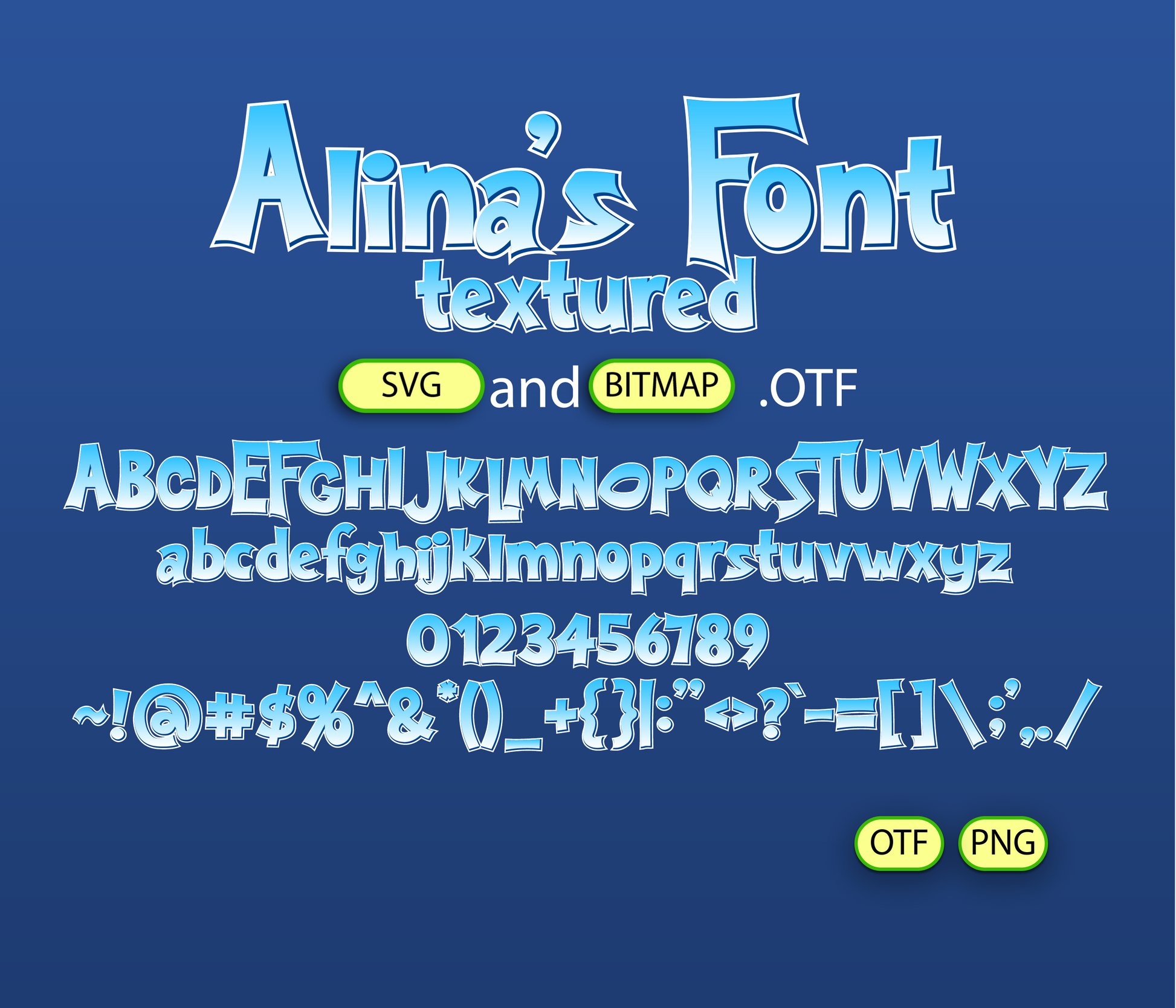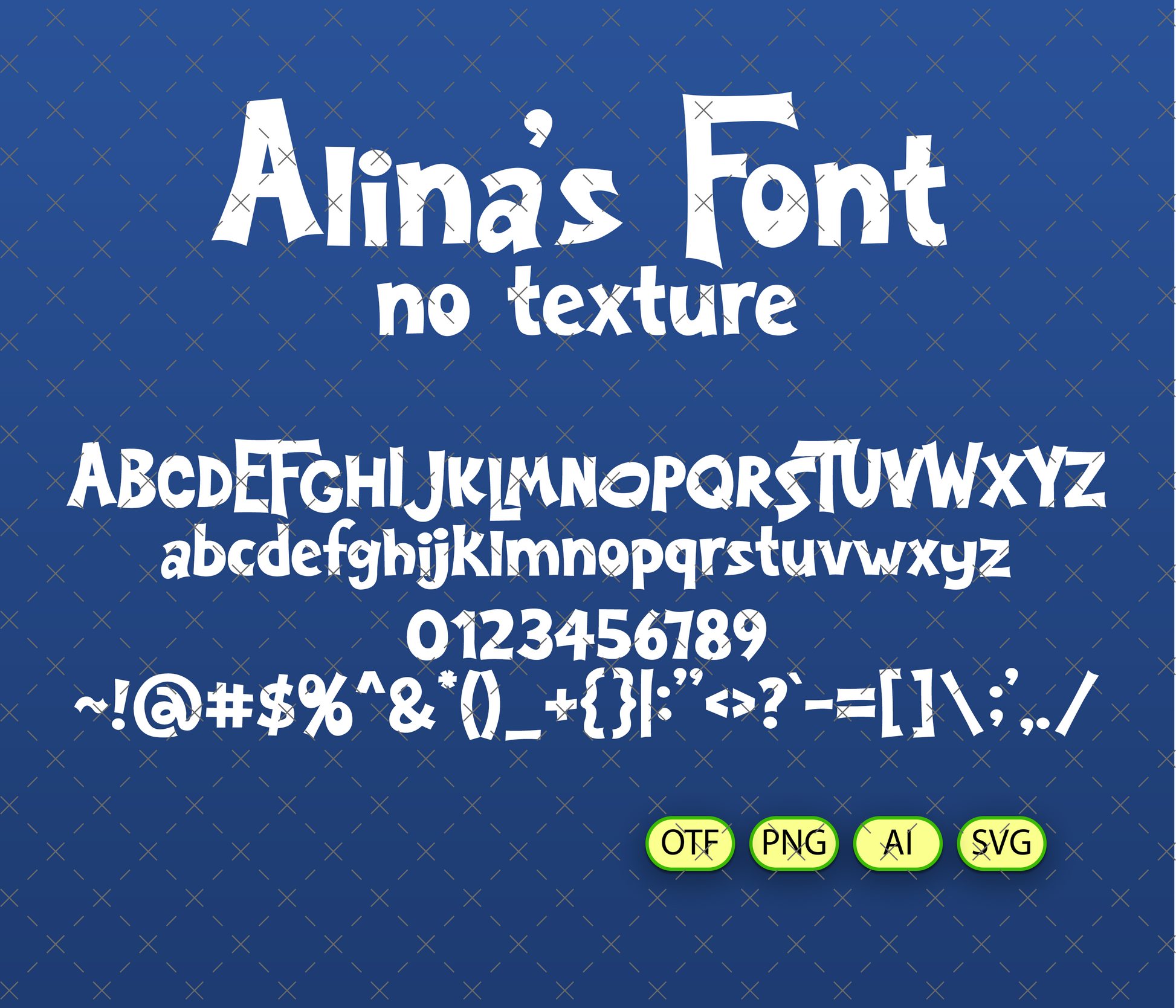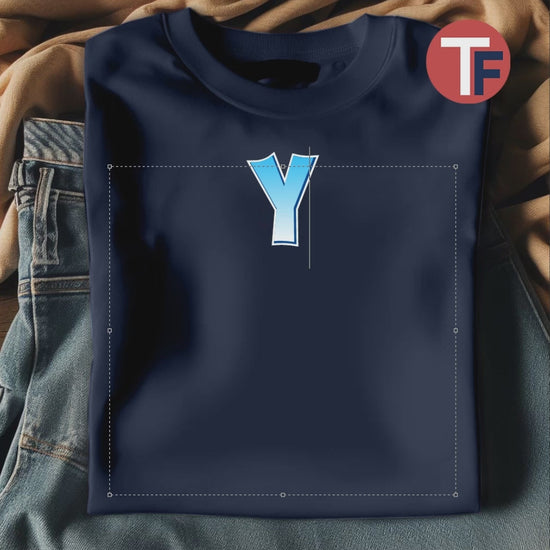
Frosty Winter Magic Font Textured
Step into the enchanting world of winter wonderland with our Frosty Winter Magic font, capturing the essence of snowy joy and festive cheer. Perfect for holiday enthusiasts, winter celebration creators, event organizers, and designers, this font brings the playful, frosty spirit of wintertime magic to your projects. Create nostalgic seasonal materials, merchandise, or digital content with the heartwarming energy of classic winter celebrations.
Our Frosty Winter Magic font features whimsical, textured lines and snow-kissed characters reflecting the world of winter enchantment. Ideal for:
• Event Promotions: Create cheerful invites, posters, and banners for holiday gatherings, winter festivals, and seasonal parties that capture the spirit of snowy celebrations
• Merchandise Design: Perfect for t-shirts, posters, and accessories that showcase the playful aesthetic of winter magic and holiday cheer
• Digital Media: Enhance websites, blogs, and social media with joyful headers and graphics that express the warmth of winter festivities
• Holiday Content: Add authentic flair to greeting cards, seasonal projects, and creative designs inspired by classic winter characters
• Personal Projects: Bring winter excitement to scrapbooking, DIY crafts, and home decor inspired by the world of snowy celebrations
Our font pays tribute to the iconic world of winter celebration and seasonal magic, empowering your designs with its cheerful and nostalgic spirit. Whether crafting promotional materials, designing merchandise, or adding a festive touch to personal projects, this font communicates the joyful essence of winter wonder. Ready to inject snowy magic into your creations? This font is your key to exciting, impactful design.